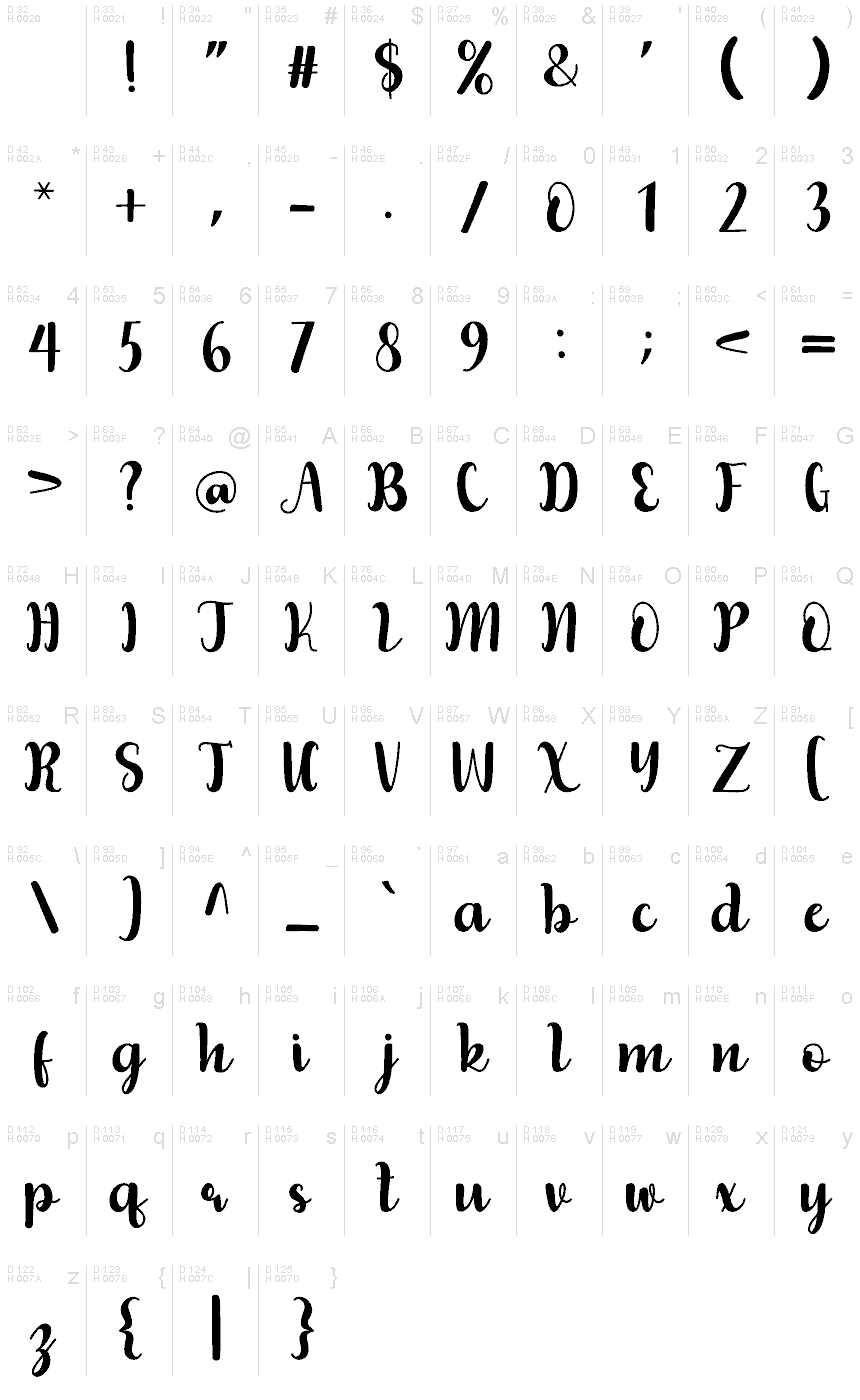
Married
Married font by Lontong Lodeh is an expressive, decorative, modern script brush typeface with a bold weight. It has an elegant flair that reflects in the signature style strokes and details present in each character.